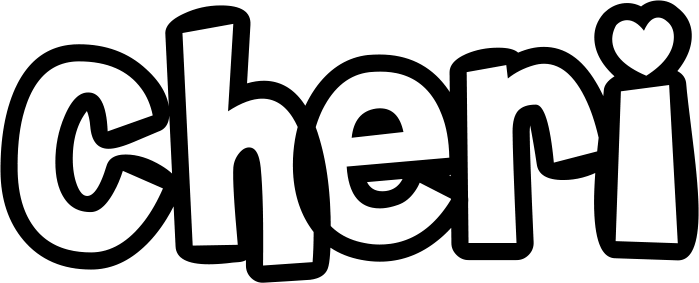
Cheri Font
Cheri font shows a fancy and friendly design. Some characters include the heart, which indicates the designer’s creativity. See two styles in this love font that will give a remarkable variety to your girly and childish fantasy designs.
In addition, they are used to designing many posters, flyers, children’s animation ads, stationery, and many birthday girl themes, so sum up your lovely design in no time.
Introducing “Cheri,” the font that wears its happiness on its sleeves, or rather, on its dots! This bubbly typeface is like a cheerful friend who sprinkles love and joy wherever it goes. Every “i” in Cheri comes adorned with a tiny heart, turning mundane text into a love-infused celebration. It’s the font equivalent of a warm hug and a burst of confetti, making your words dance with delight. Let Cheri be your go-to choice when you want to add a dash of happiness and a sprinkle of love to your designs – because who says letters can’t be cute and charming?